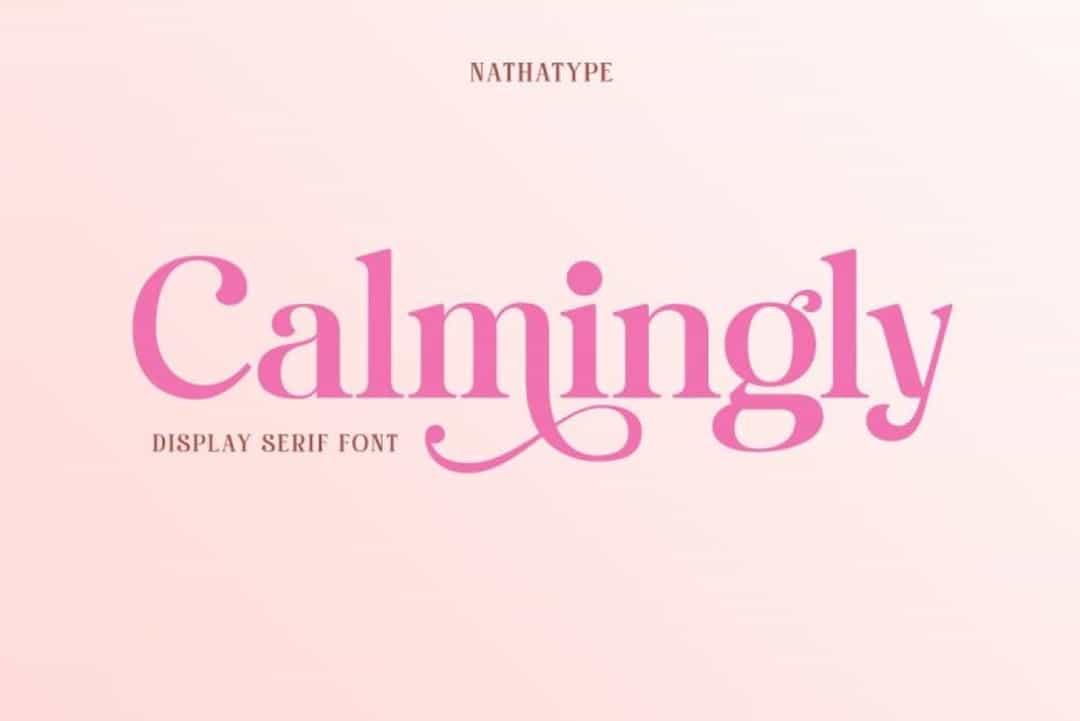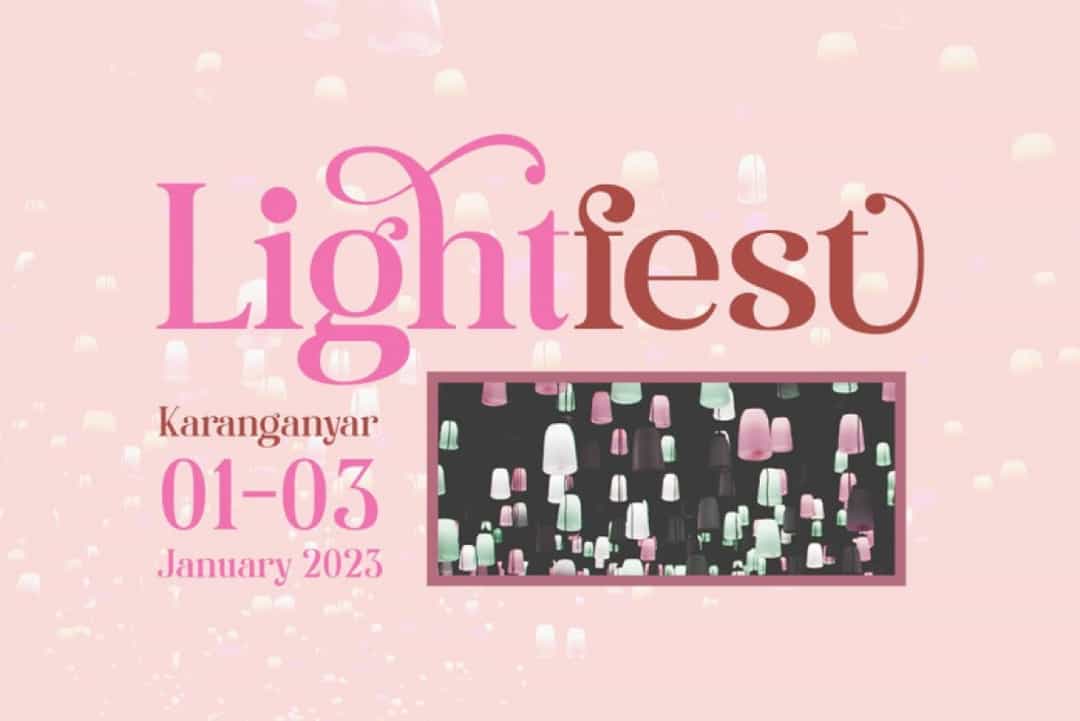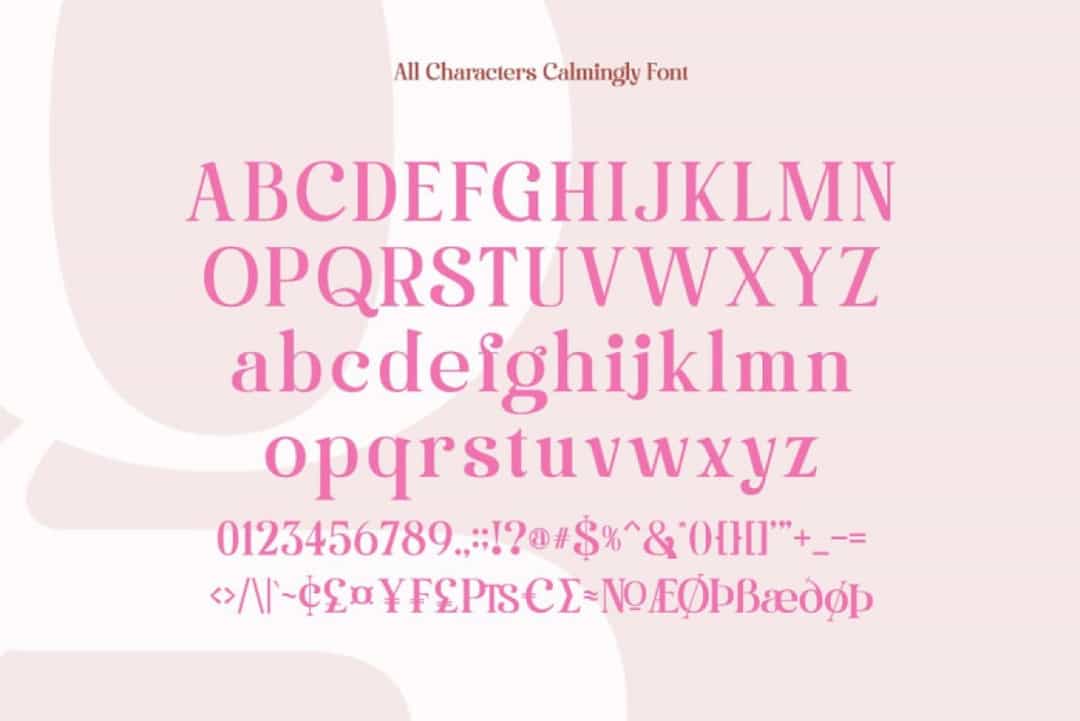
Calmingly is an elegant display serif font perfect for creating luxurious designs while adding feminine accents. Its simple letter heights and lines of various thicknesses makes this font easy to read.